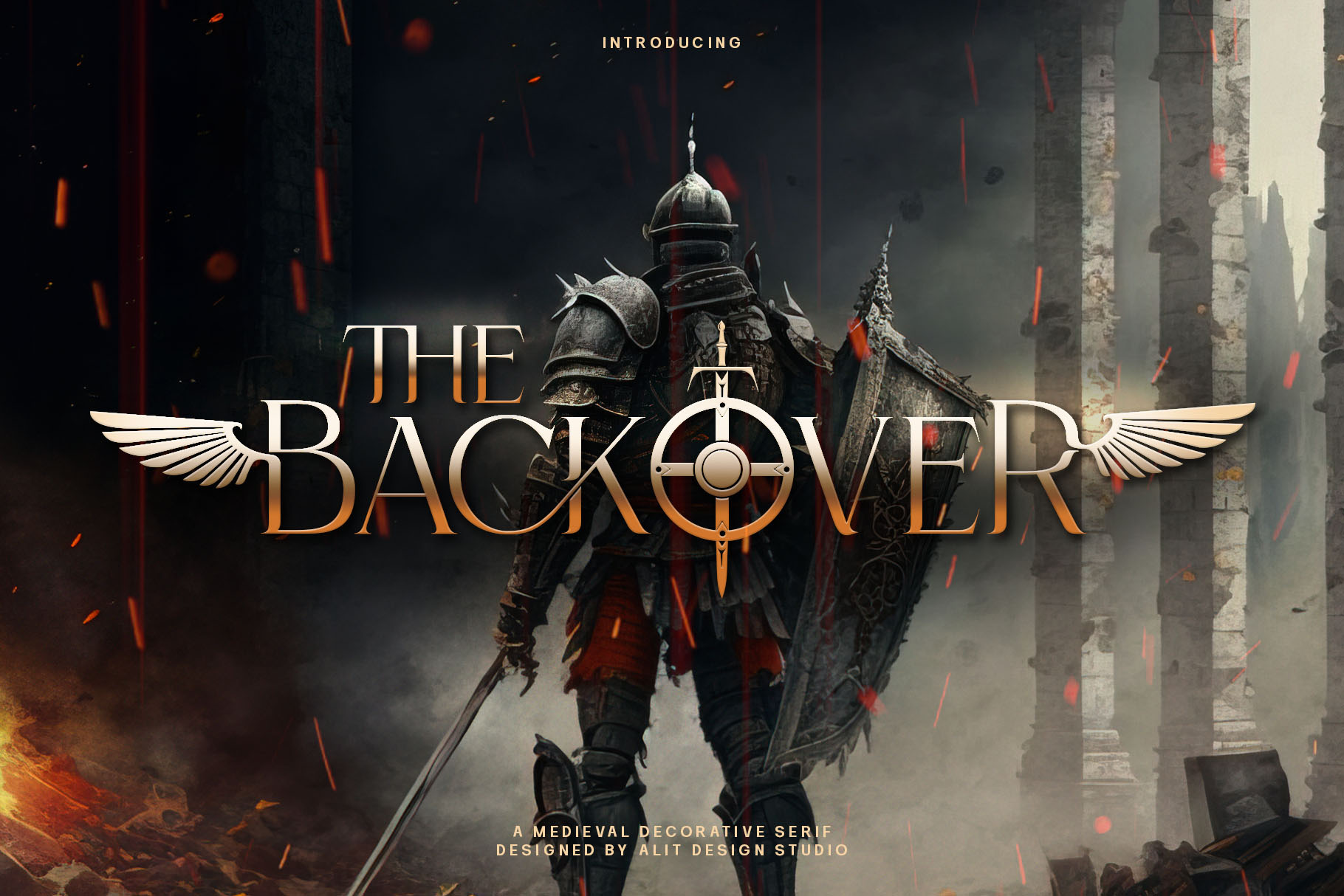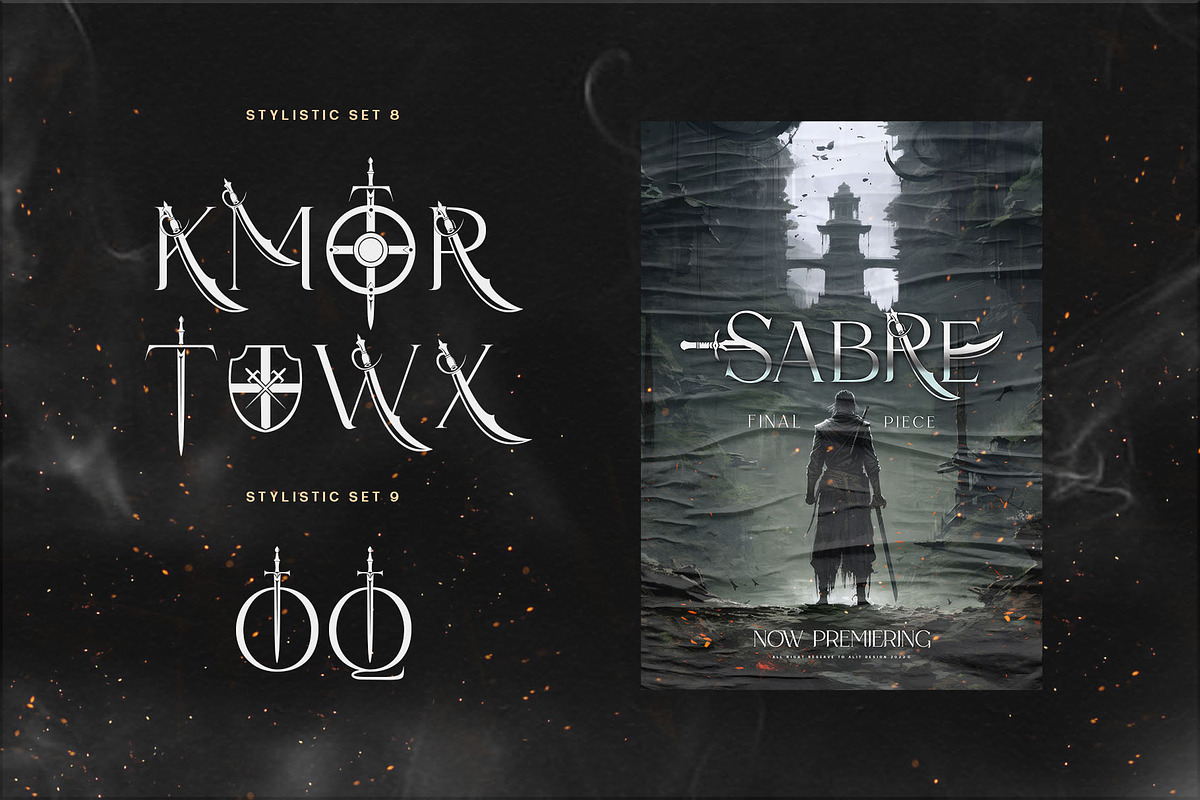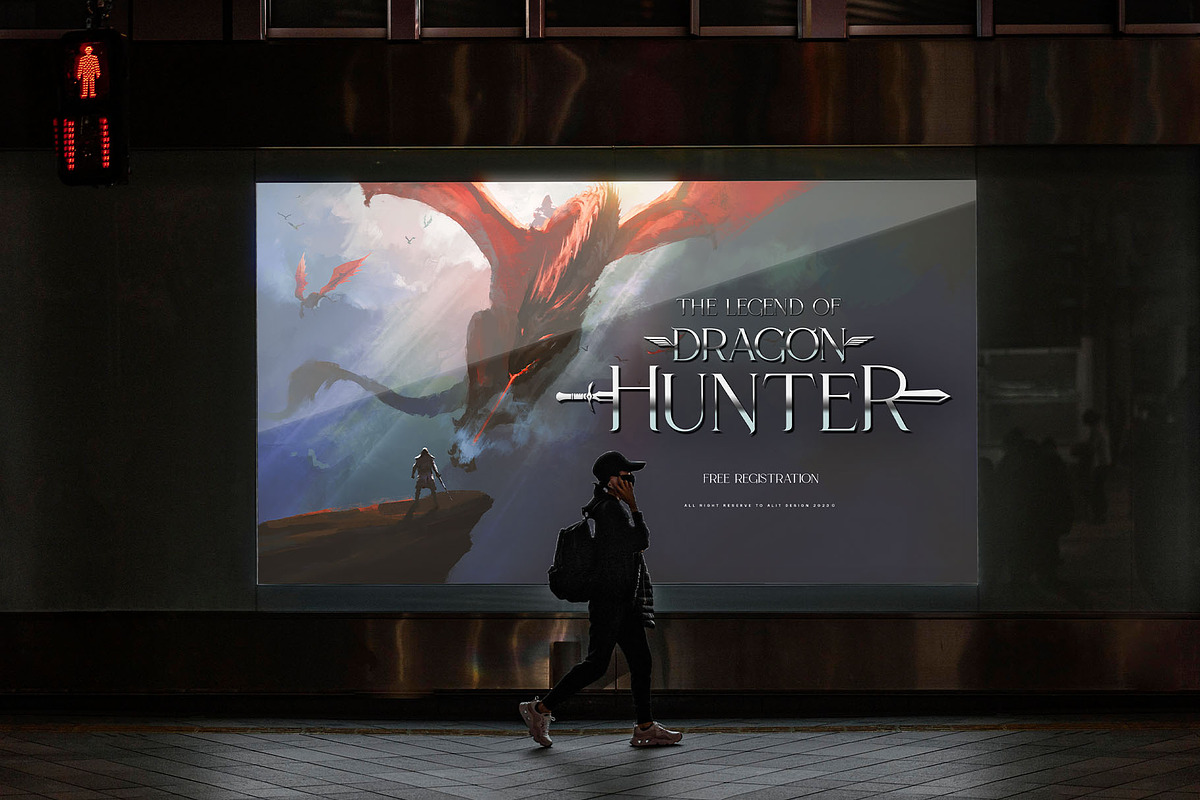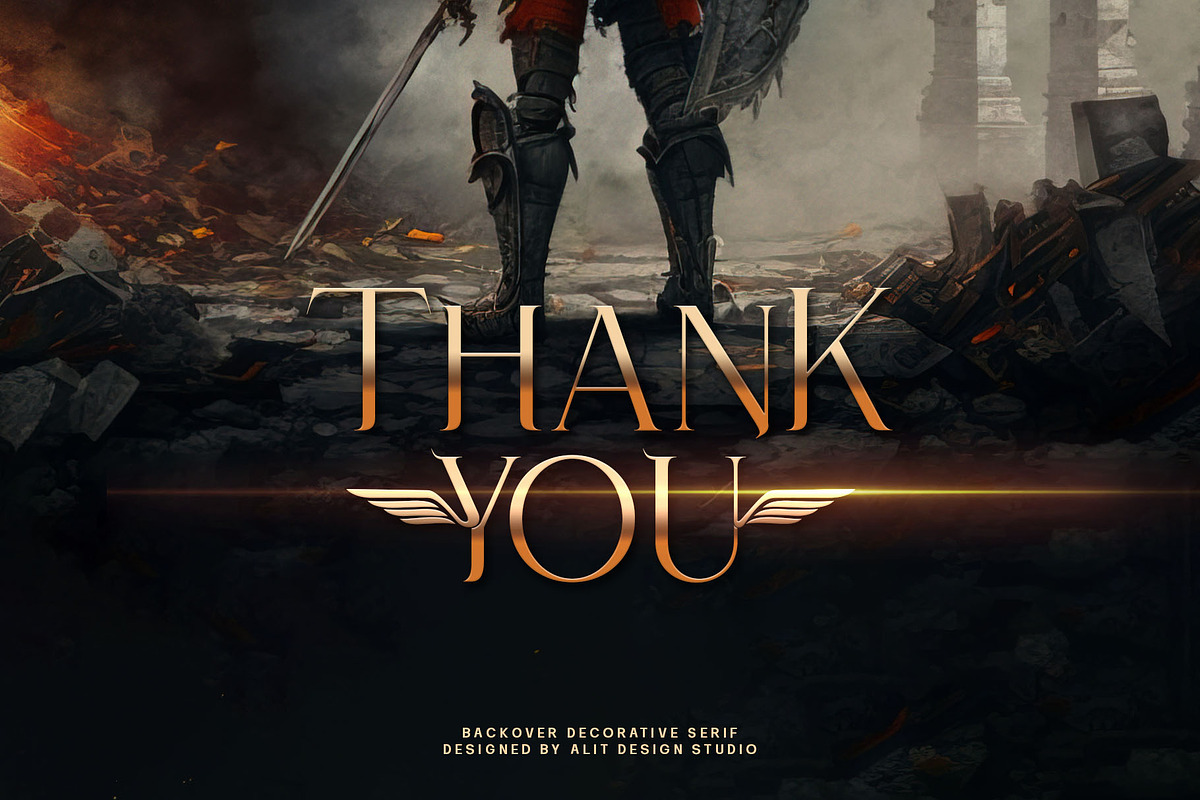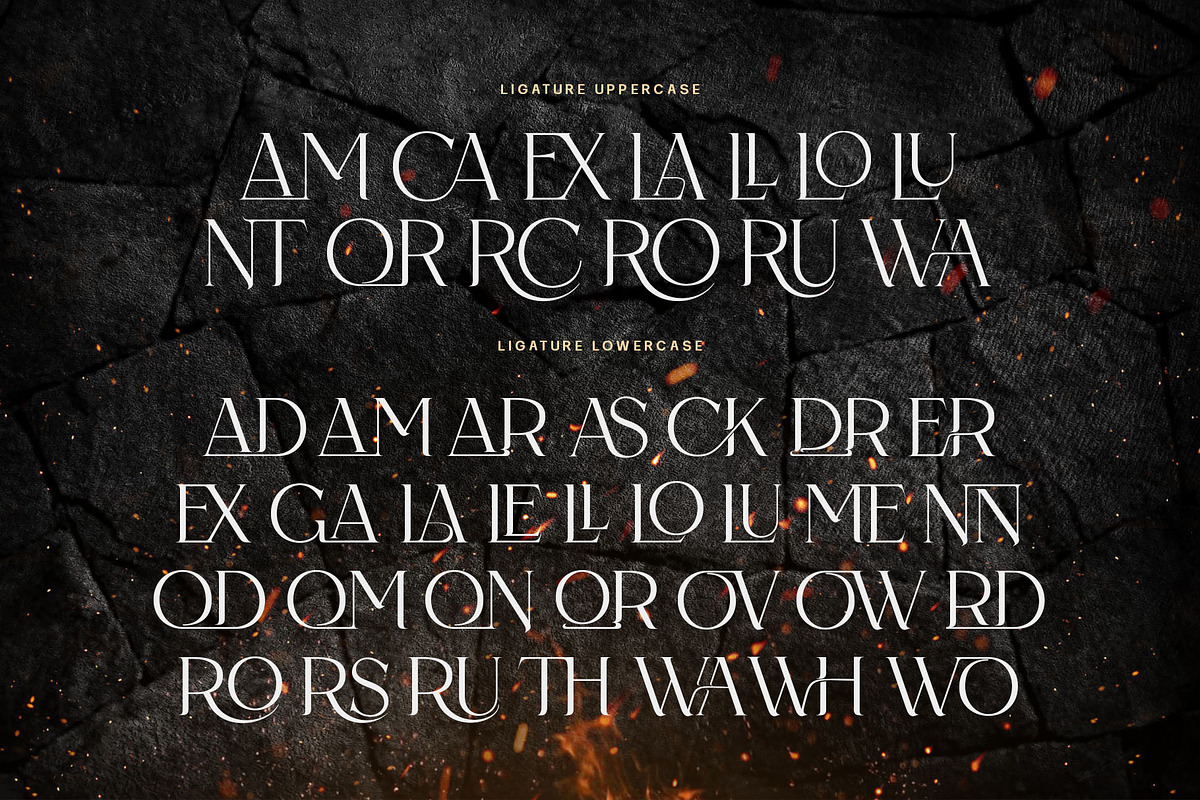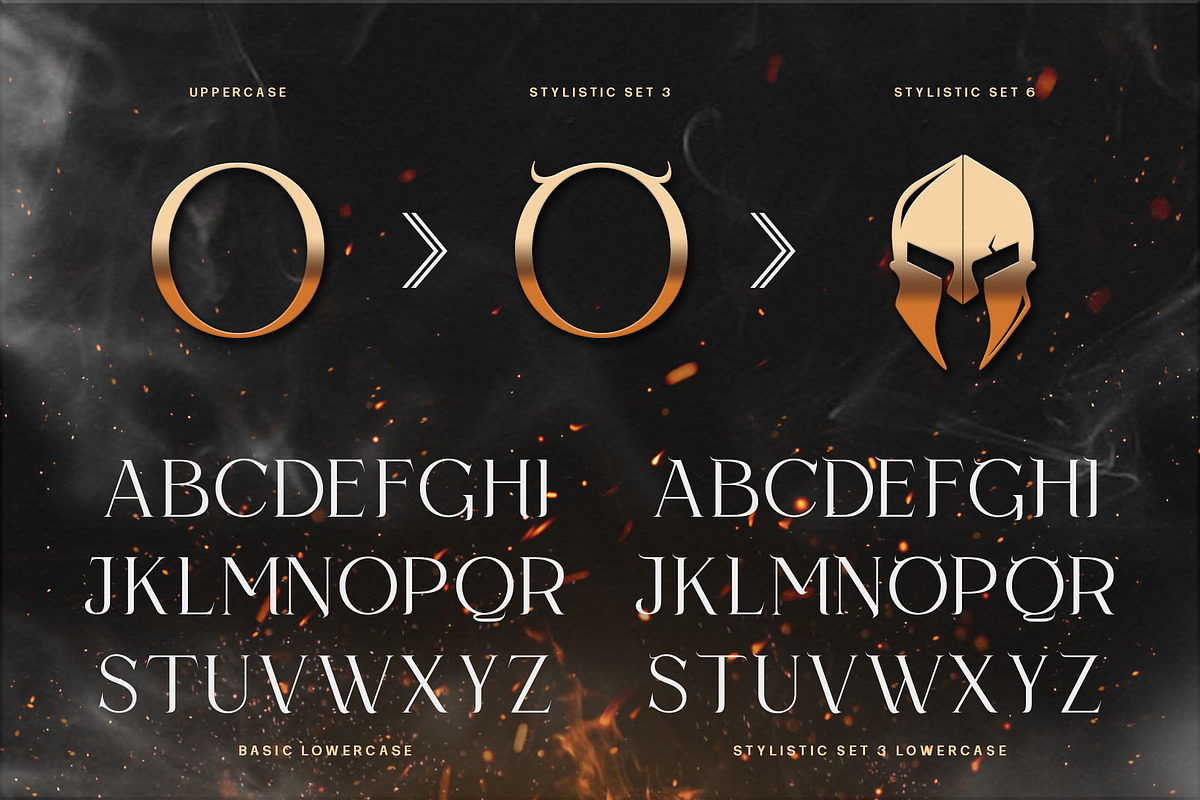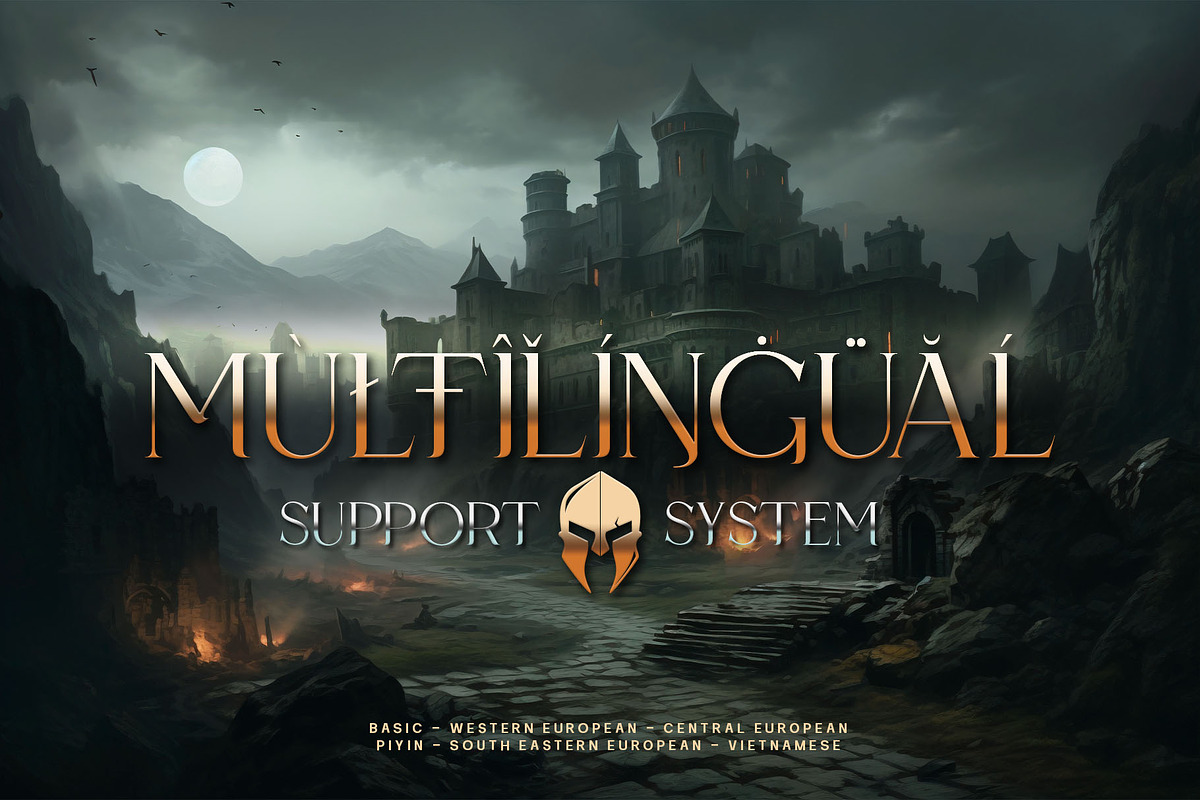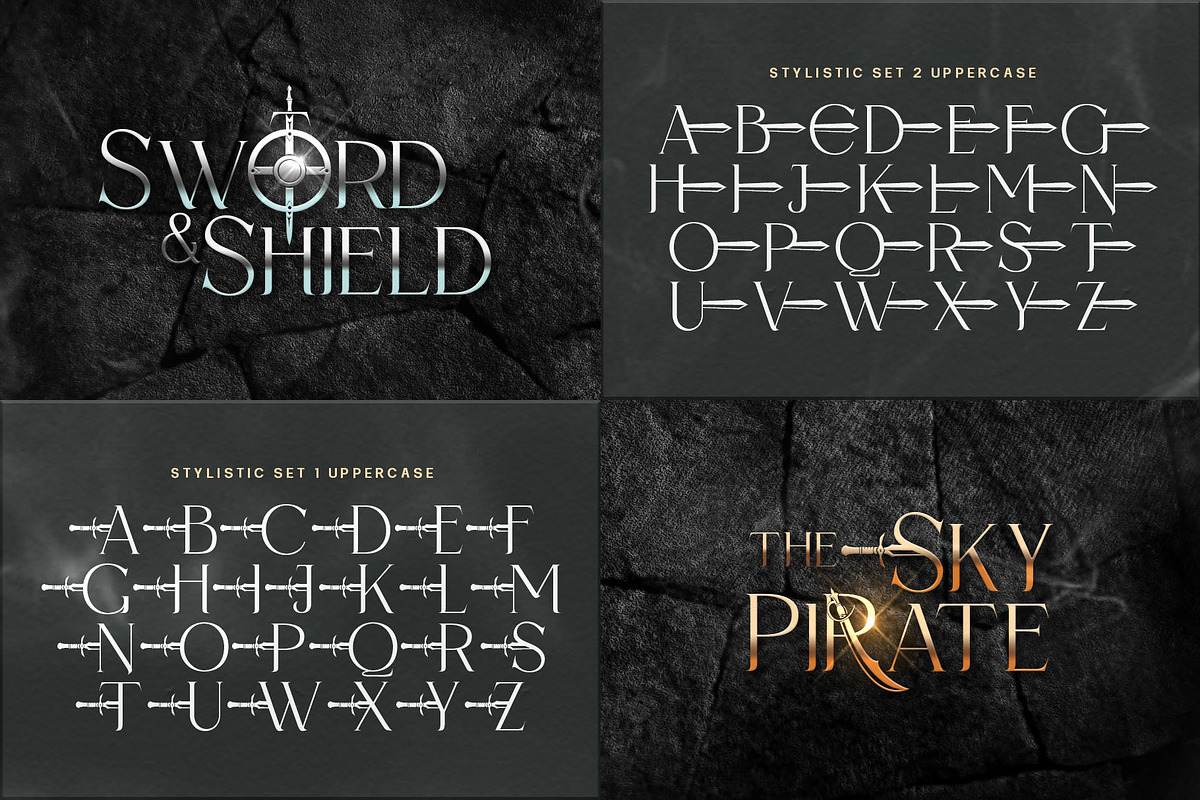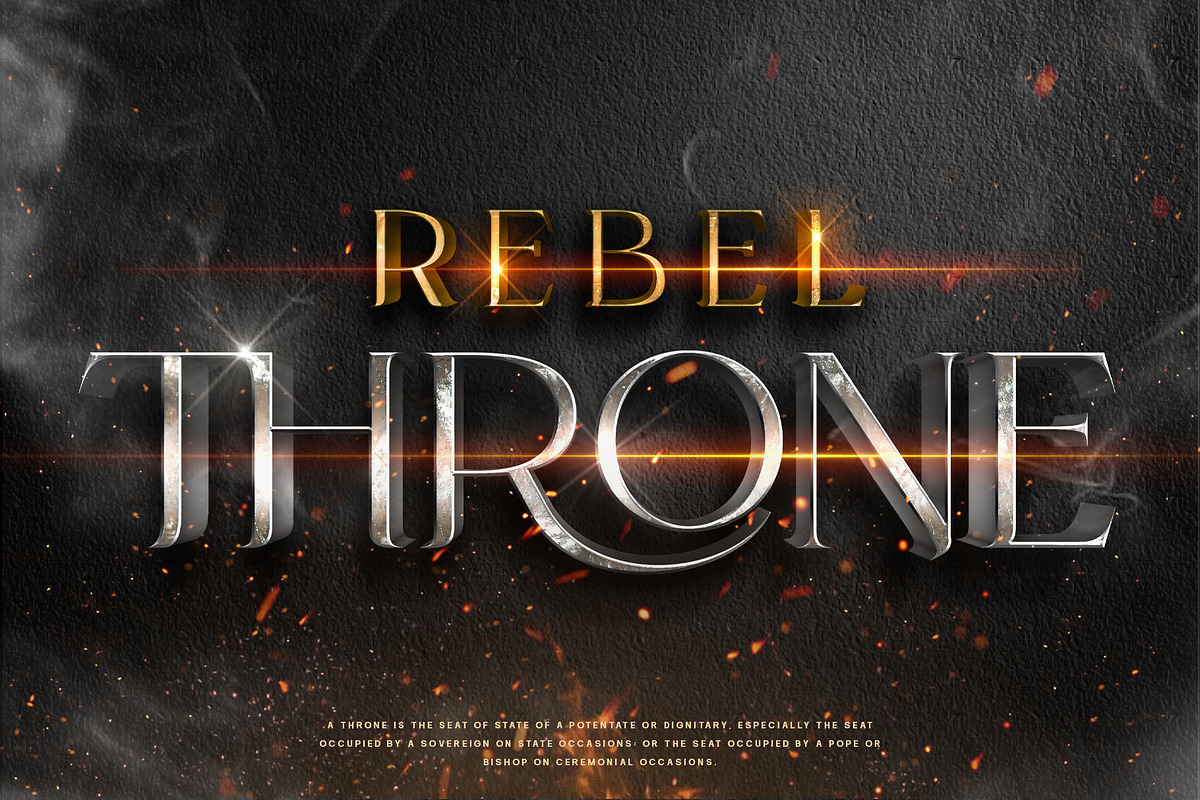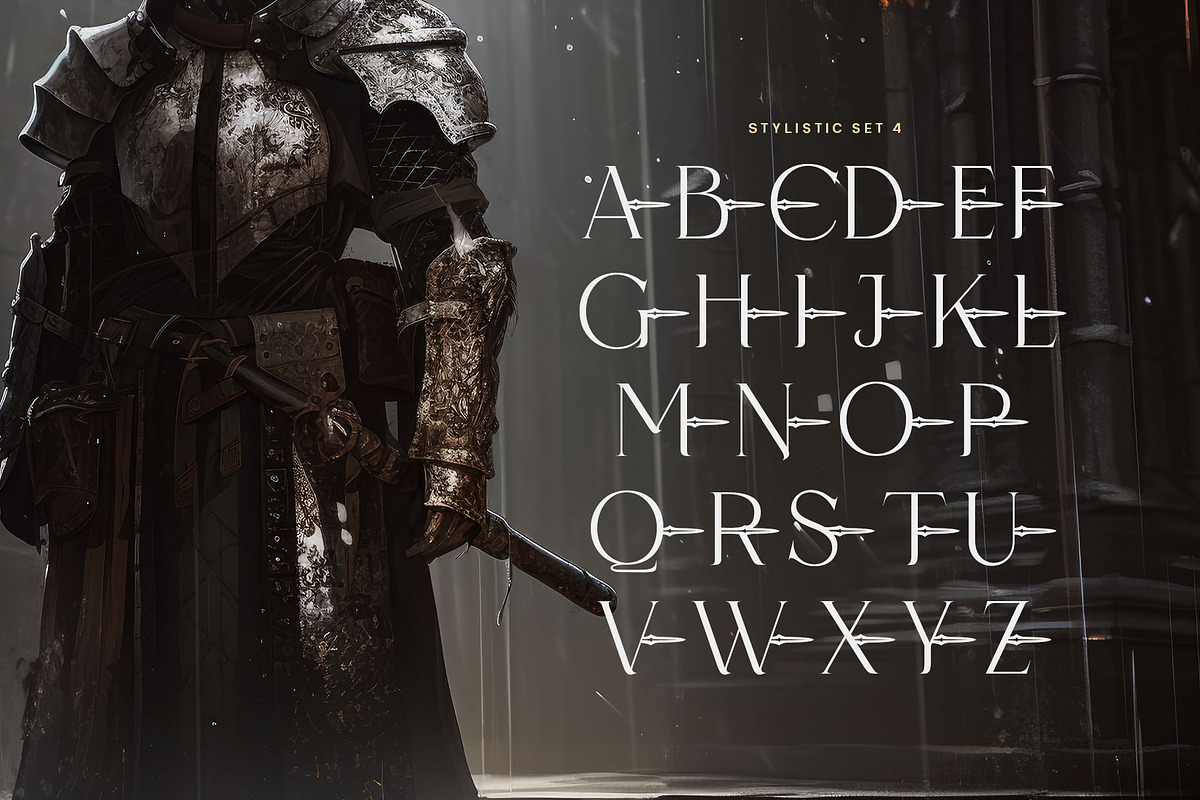
Back Over Typeface
Introducing "Backover Typeface" – Unleash the Power of Words with a Heroic Twist!
🔥 Immerse yourself in the epic realm of typography with our latest creation, the "Backover Typeface." Inspired by the valor of superheroes and the chivalry of knights, this font is a visual journey into the heart of heroic tales.
🗡️ Strike with Power: Channel the strength of legendary warriors as each letter in "Backover Typeface" is meticulously crafted to embody the essence of a hero's decisive strike. The sharp angles and bold lines evoke the precision of a superhero's punch or a knight's swordplay.
🛡️ Defend with Style: The font doesn't just pack a punch; it defends with flair! Each curve and contour replicate the resilience of a shield, offering a typographic fortress that stands strong against the ordinary. Let your words be the armor that shields your message with distinction.
👤 Unleash Your Inner Hero: "Backover Typeface" isn't just a font; it's a transformation. Feel the power surge as you type words that resonate with the bravery of classic heroes. This font empowers your message to become a beacon of courage, ready to take on any adventure.
⚔️ Warrior's Arsenal: Immerse your audience in the visual feast of classic warrior illustrations included with "Backover Typeface." Swords clash, shields protect, and helmets gleam with the promise of valor. These meticulously designed elements seamlessly integrate into your typography, allowing you to create a visual narrative that echoes the grandeur of heroism.
🎮 Level Up Your Designs: Whether you're working on a superhero movie poster, a knight-themed game interface, or any project that demands a touch of legendary charm, "Backover Typeface" is your ultimate companion. Elevate your designs, captivate your audience, and let the font be the hero of your creative journey.
🌟 Key Features:
- Heroic Typography
- Superhero and Knight Theme
- Sword, Shield, and Helmet Illustrations
- Perfect for Movie Posters, Game Graphics, and more